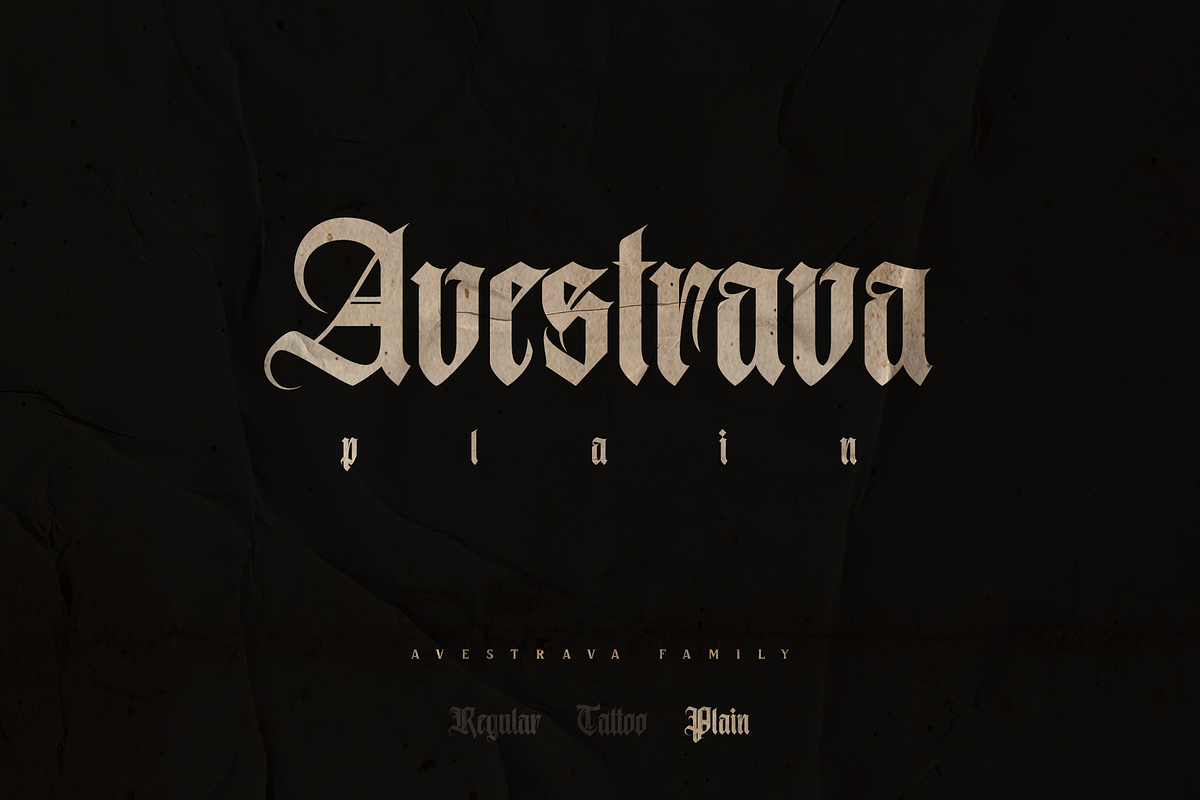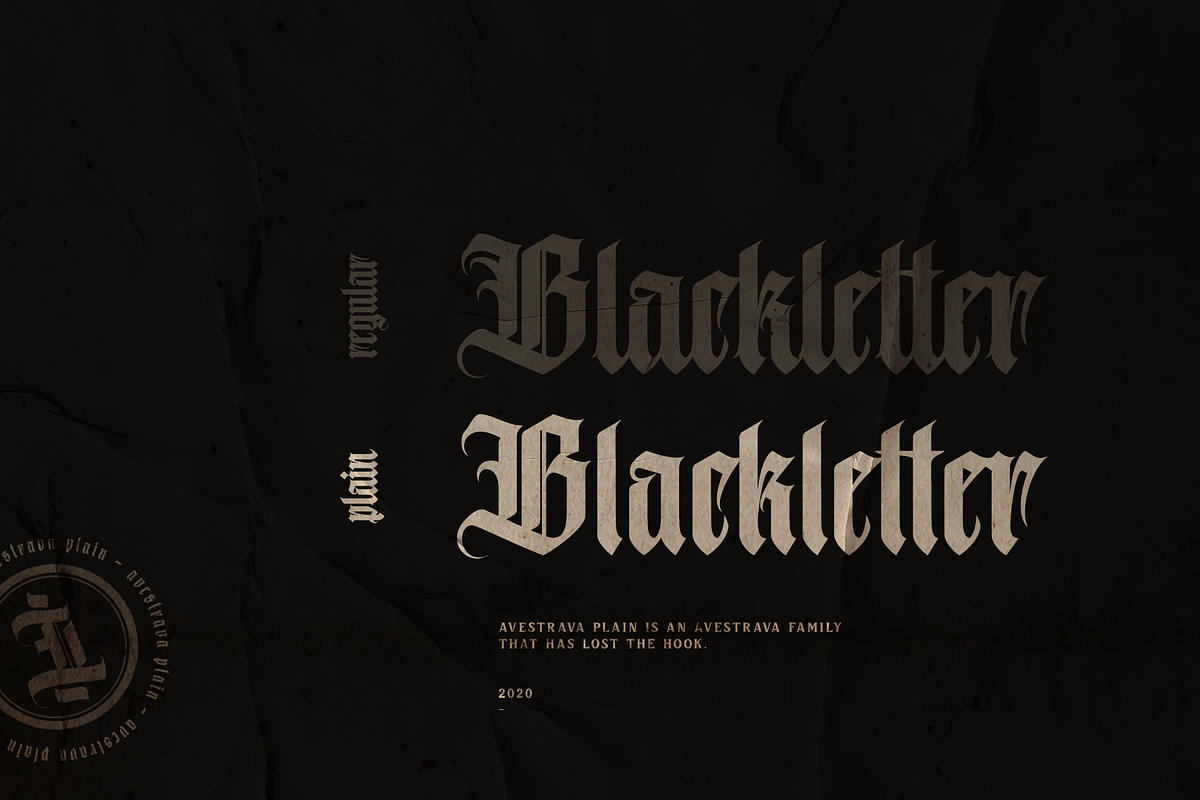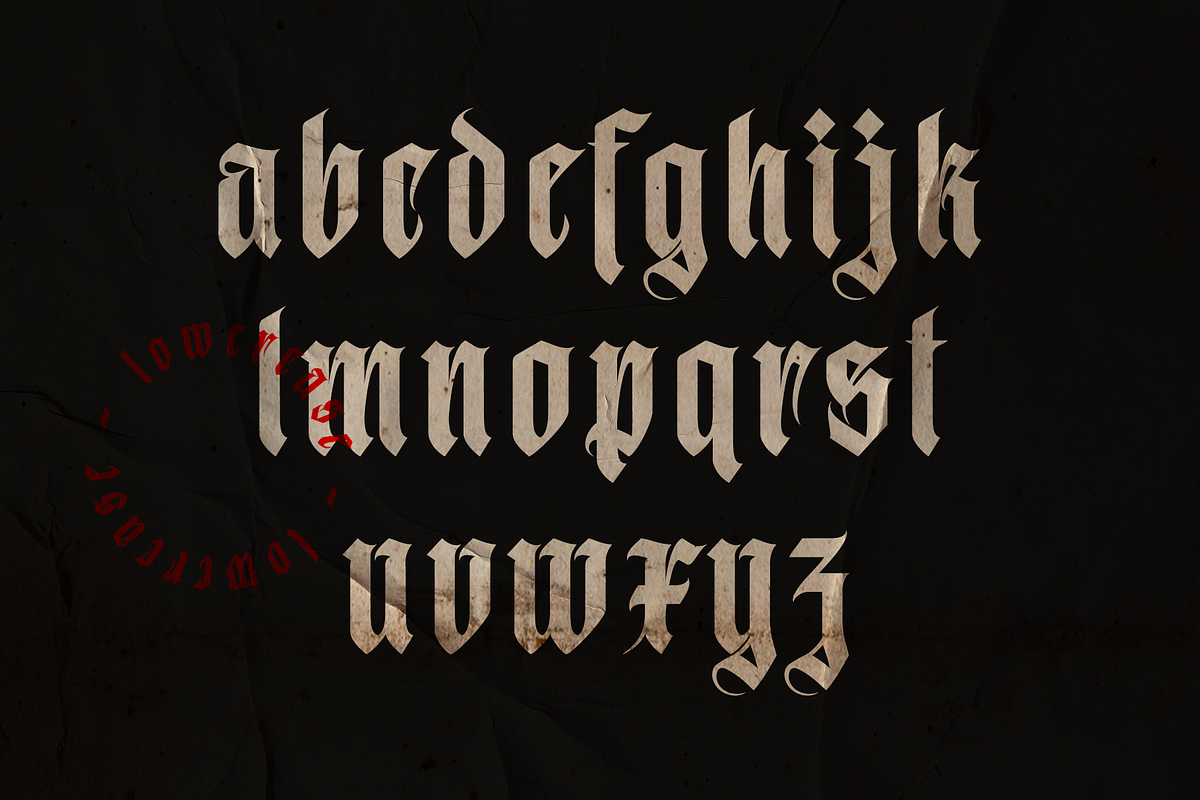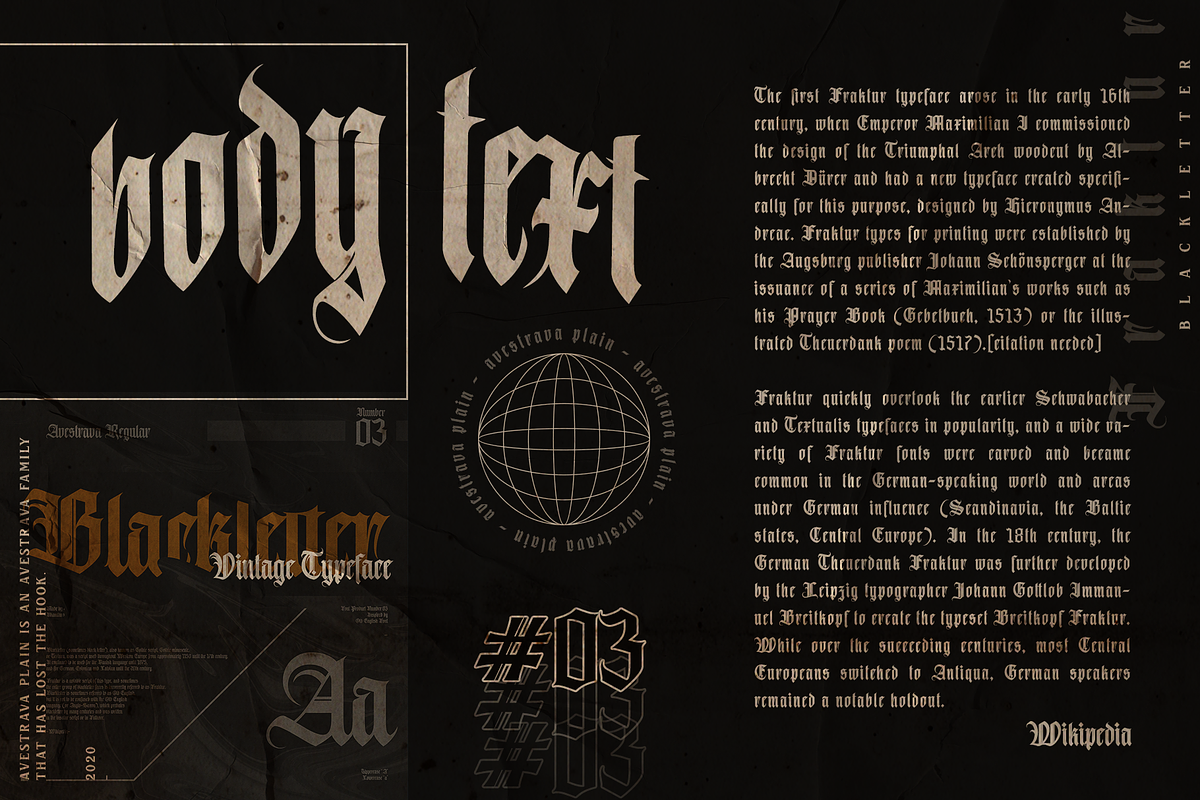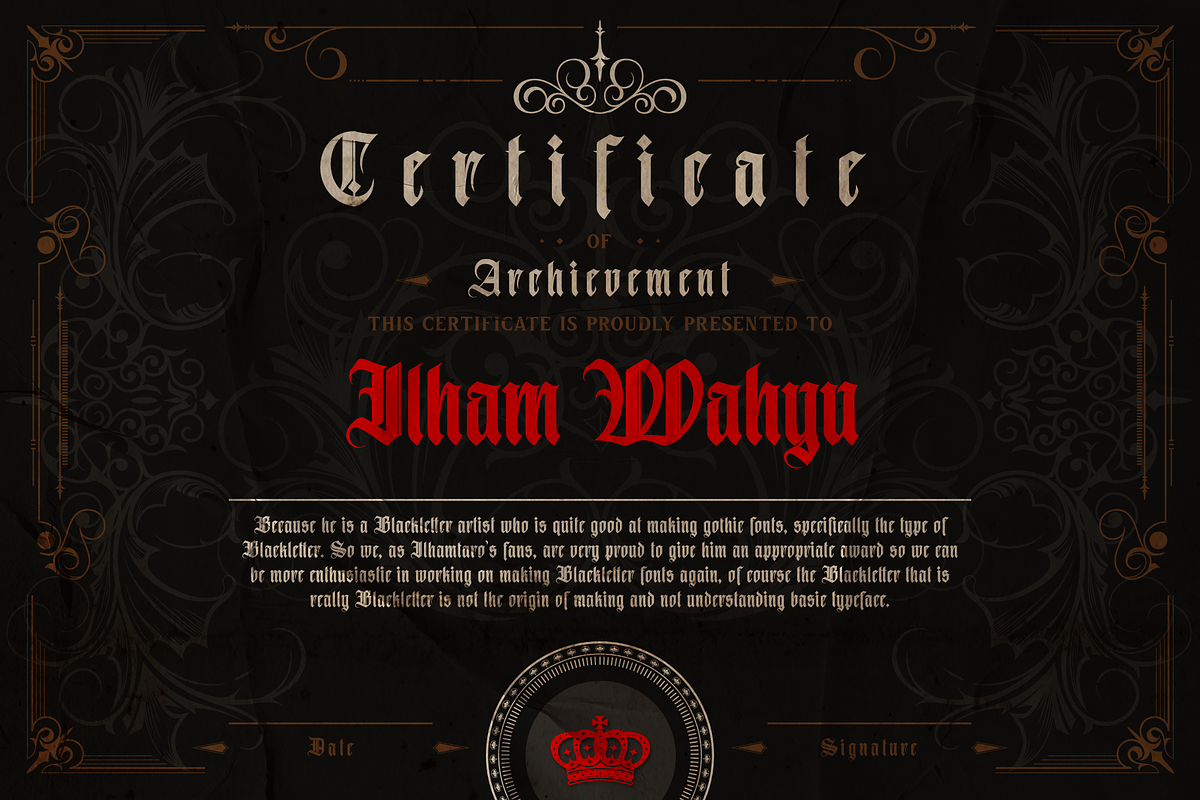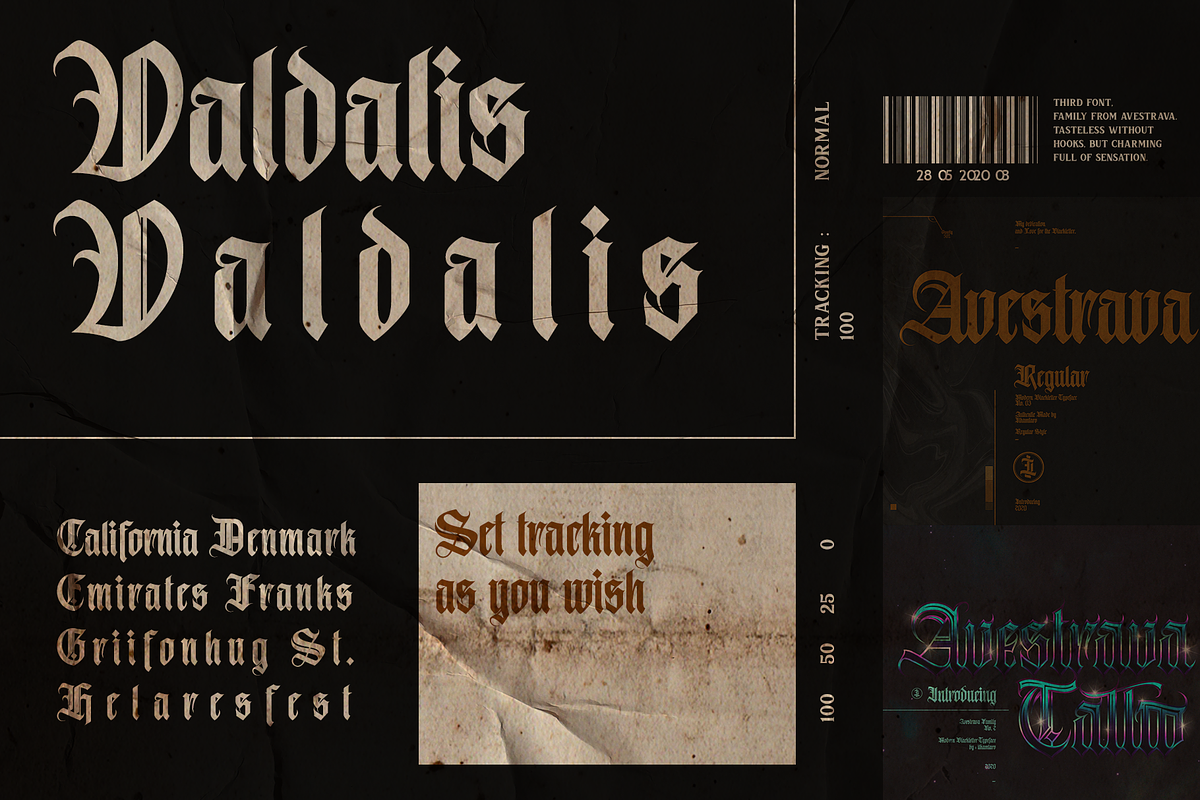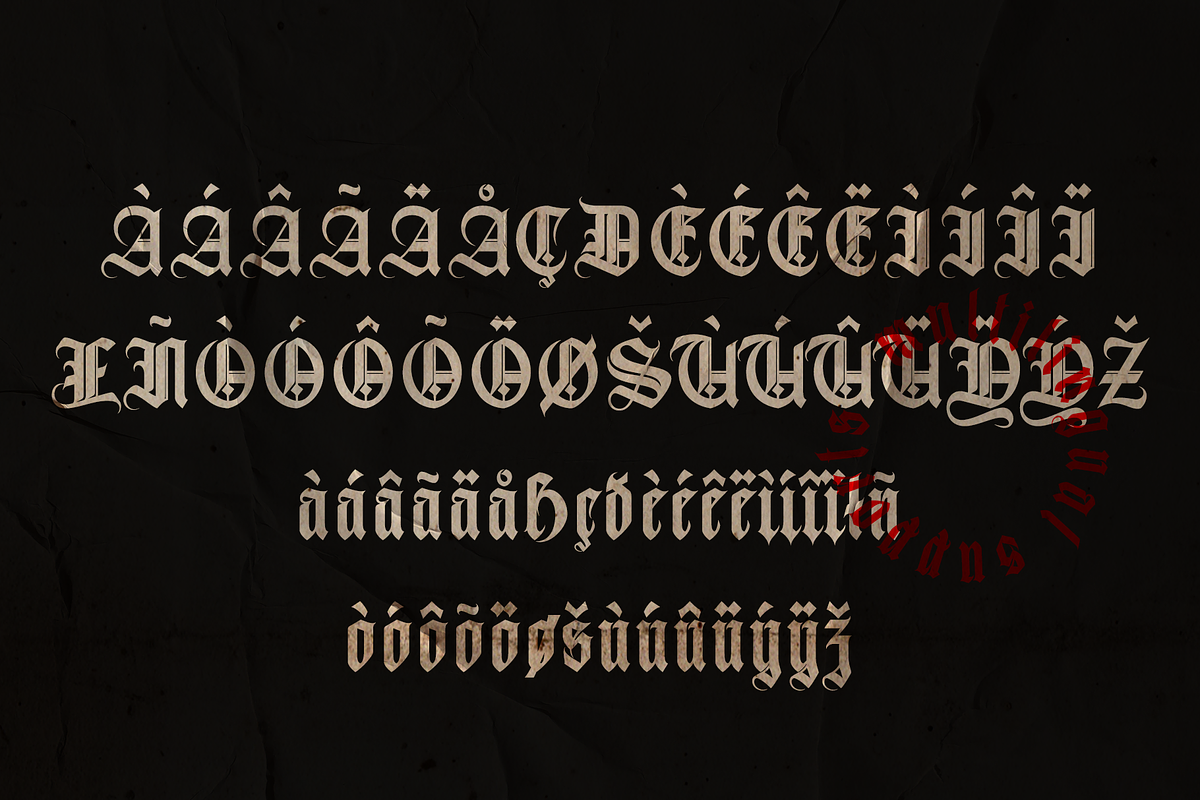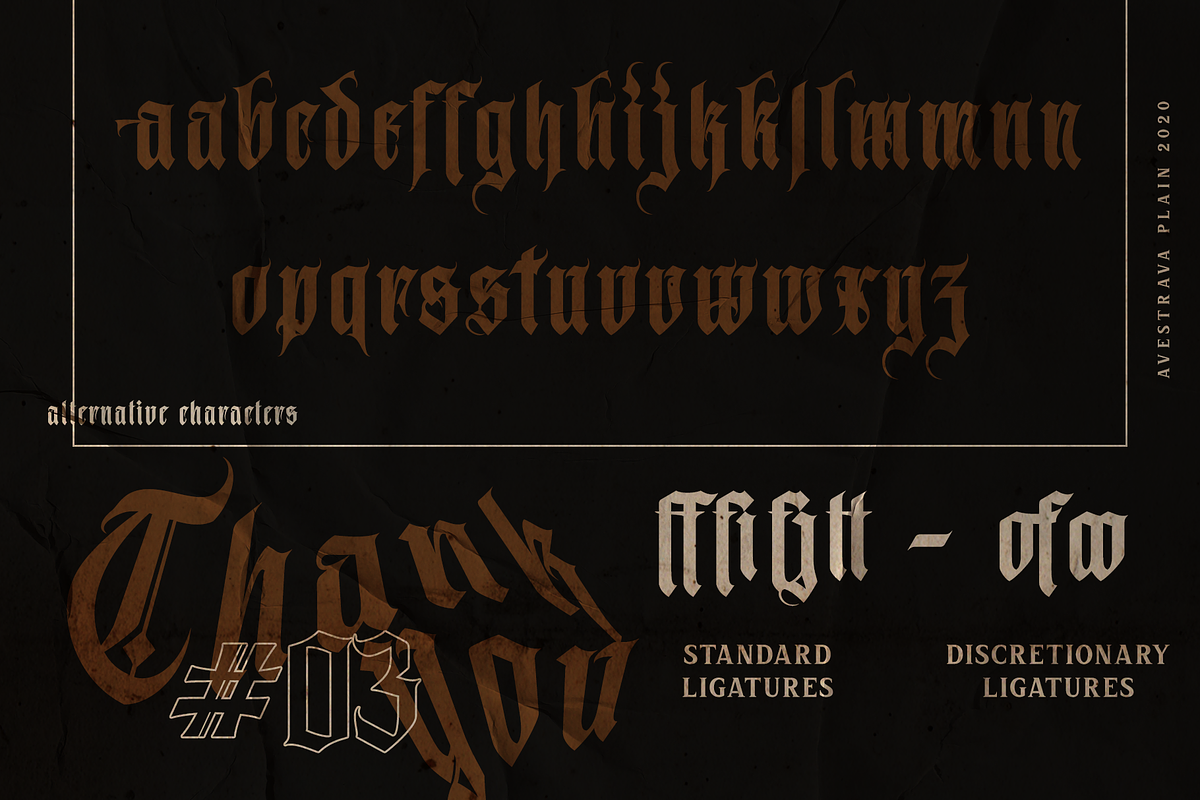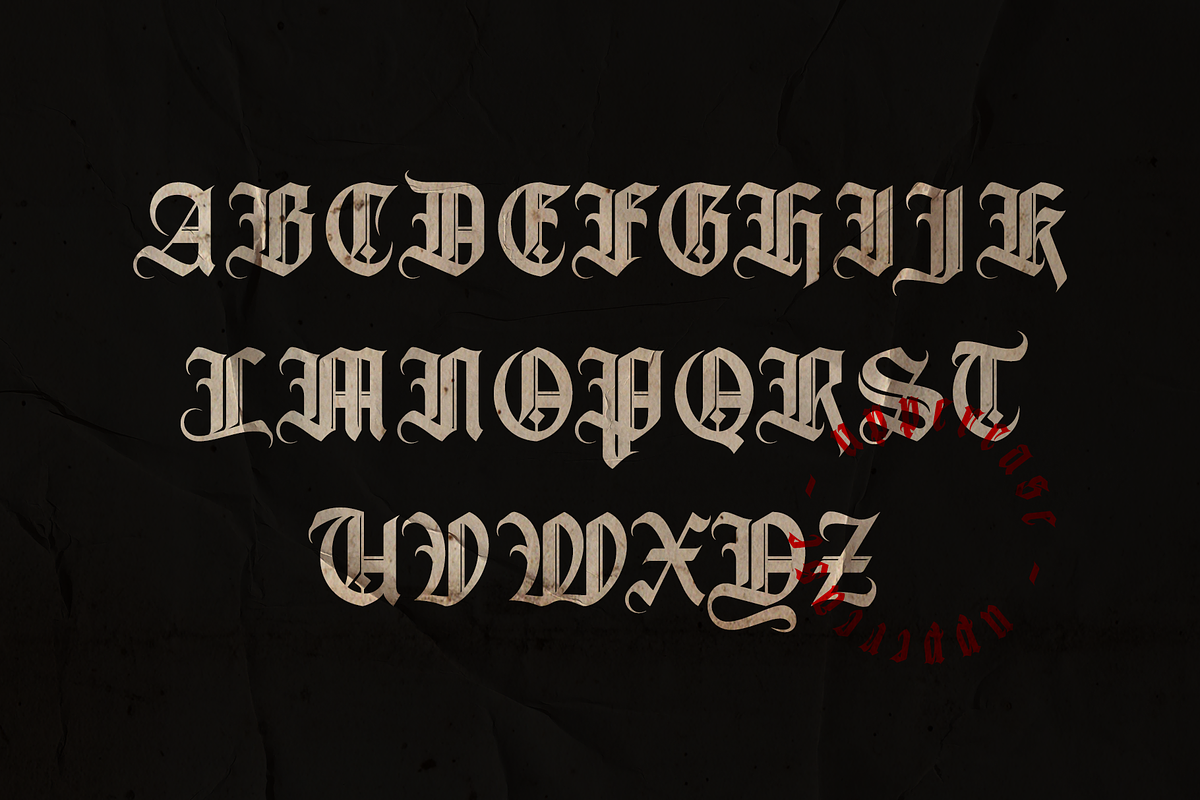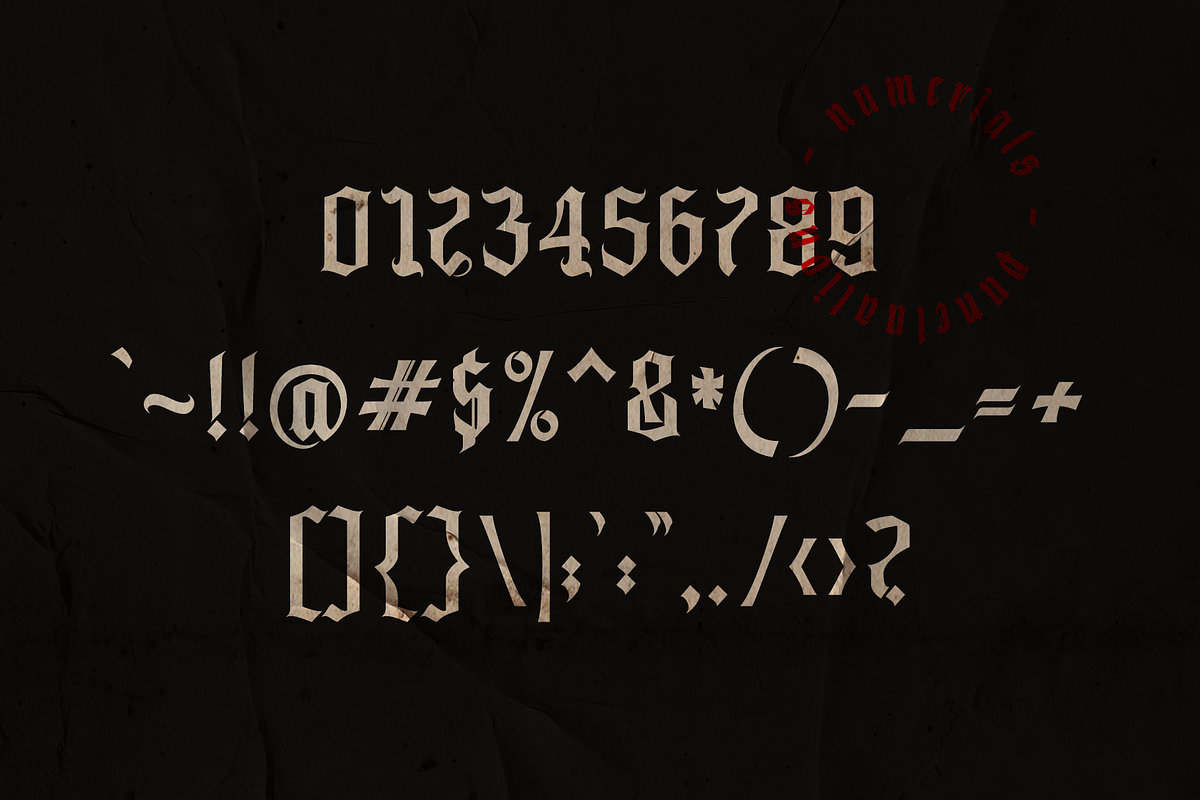
Avestrava Plain
AVESTRAVA PLAIN is a family of letters from Avestrava. This is a Blackletter without hooks, and it is possible to make body text and look interesting too when you add tracking. In addition to being vintage, Avestrava Plain is a clean font. Of course it will be very suitable for your tattoo studio business, such as for making a logo or tattoo design. In addition to supporting the design of your tattoo studio promotions such as business card designs, posters, flyers, brochures, t-shirts, stickers, even very good if applied to your social media such as the design of Instagram stories, Instagram posts, your website etc.
Besides this font is able to convey the nature of the vintage blackletter into a modern layout design.